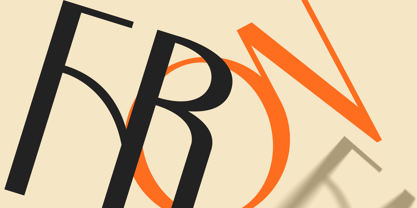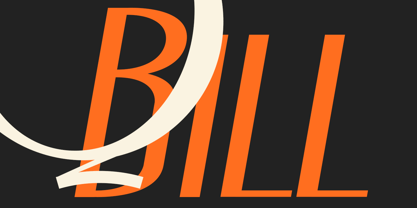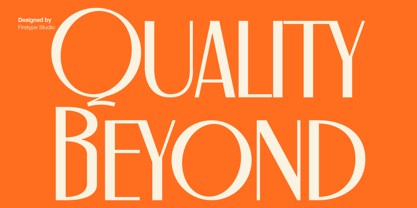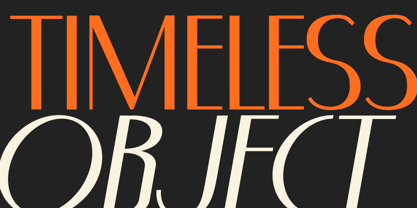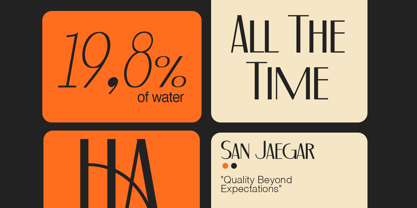
Decophile
von Firstype Studio
Die Schriftfamilie Decophile wurde von Adrian Syauqi entworfen und von Firstype Studio veröffentlicht. Decophile enthält 4 Stile und Familienpaketoptionen. Mehr über diese Familie
Decophile is a sophisticated Art Deco-inspired display font that embodies modern elegance and timeless luxury. With its tall letterforms, geometric balance, and subtle curves, this typeface enhances branding, packaging, posters, and editorial designs with a refined aesthetic. Each character is meticulously crafted to reflect precision and style, merging minimal strokes with elegant proportions that evoke the glamour of the 1920s while retaining a contemporary flair. Ideal for logos, fashion magazines, perfumes, invitations, and boutique branding, Decophile infuses a touch of class and confidence into any creative project. Its clean details and stylish flair make it perfect for designers aiming for a bold yet graceful visual statement. ✨ **Features:** Uppercase & lowercase letters, numbers & punctuation, multilingual support, elegant ligatures & alternates. Whether creating a luxury brand identity or an editorial headline, Decophile strikes the perfect balance between modern simplicity and vintage sophistication, making it a versatile choice for various design applications.